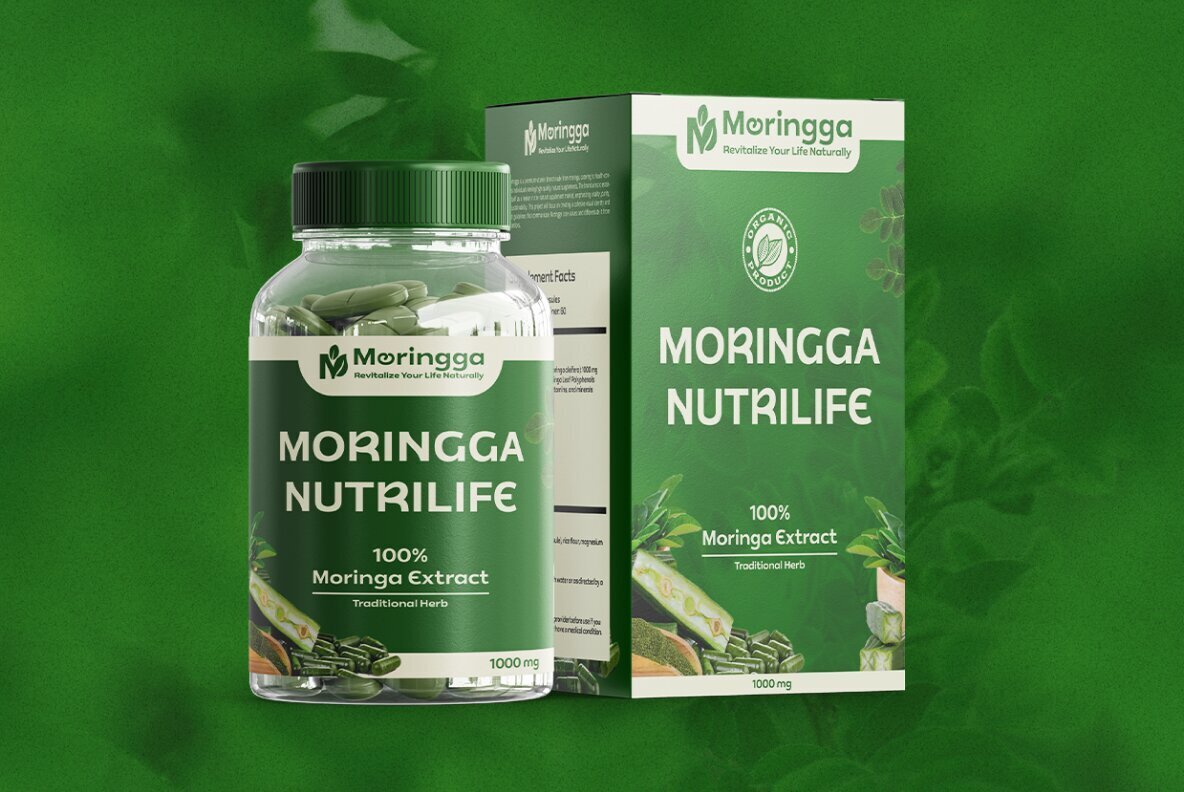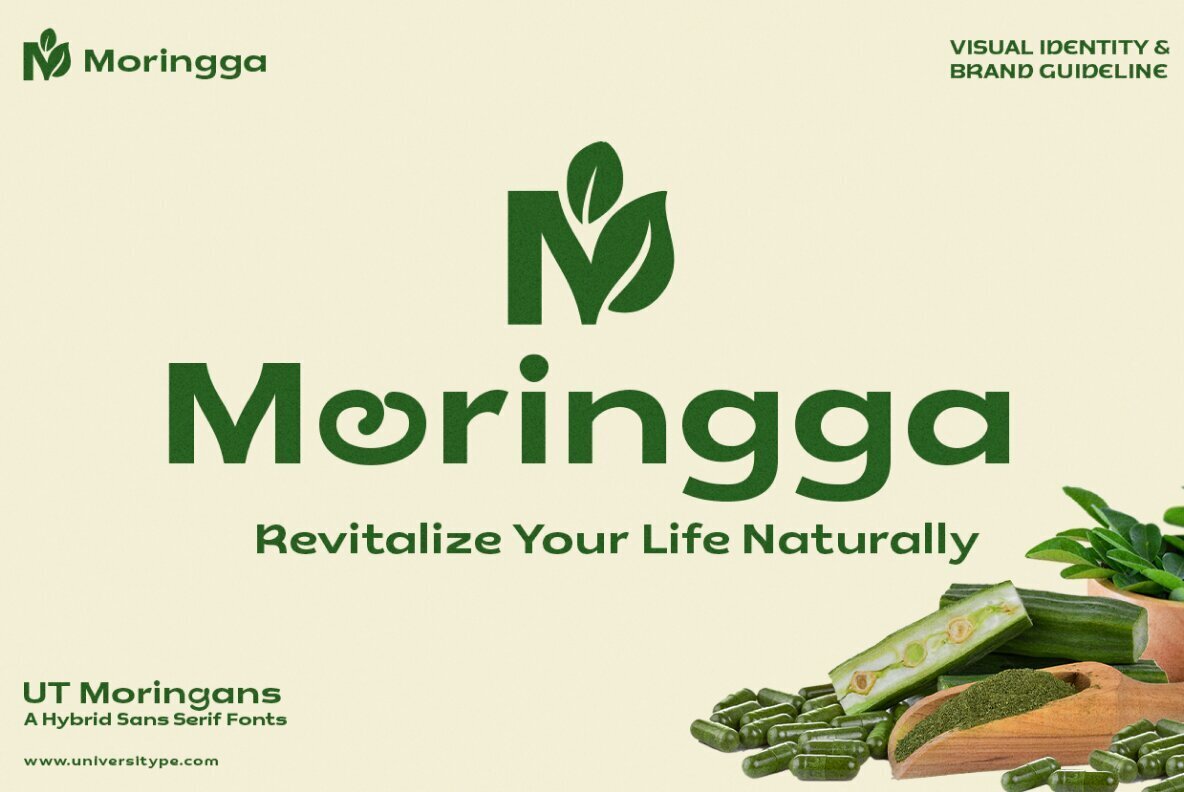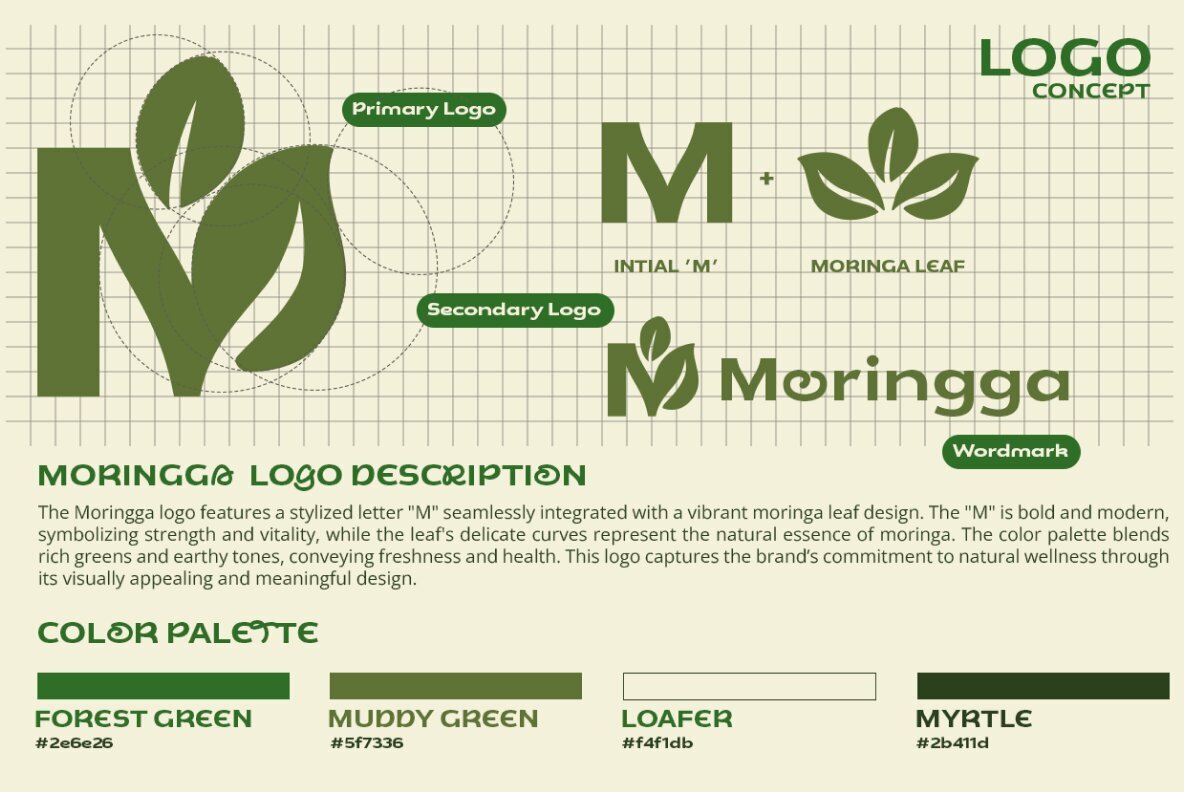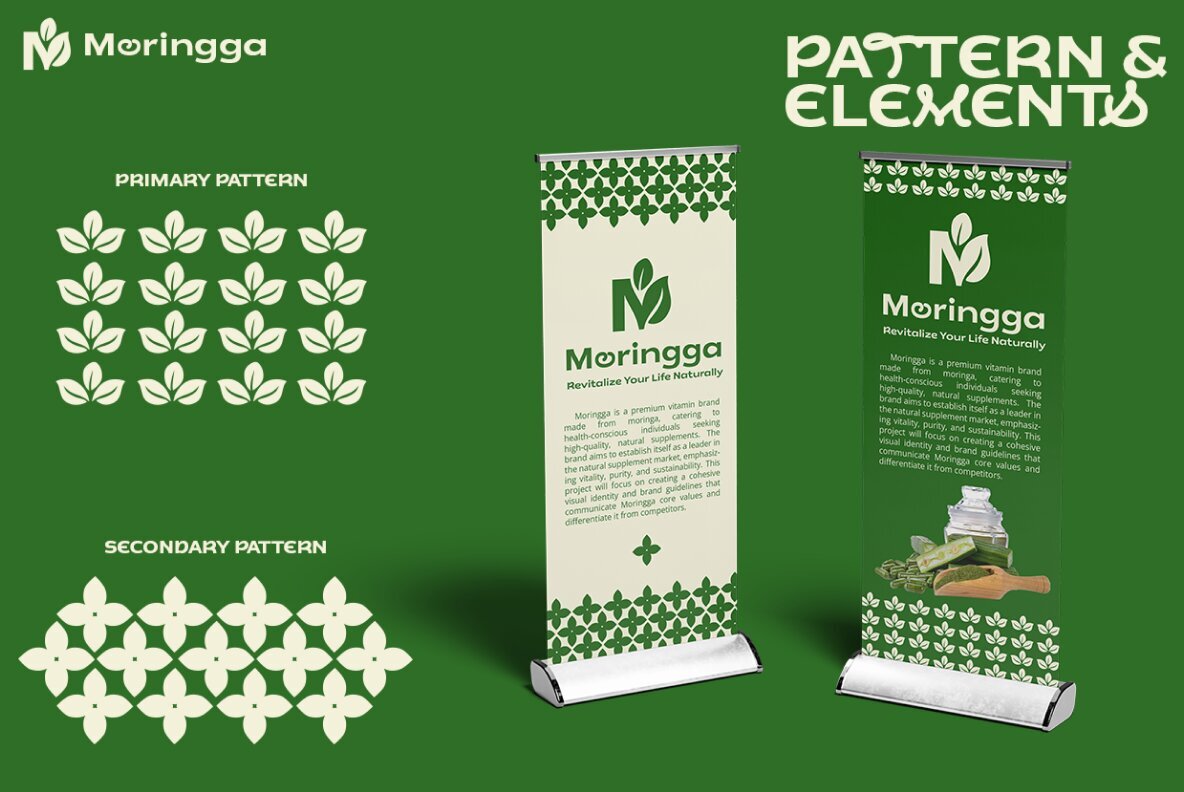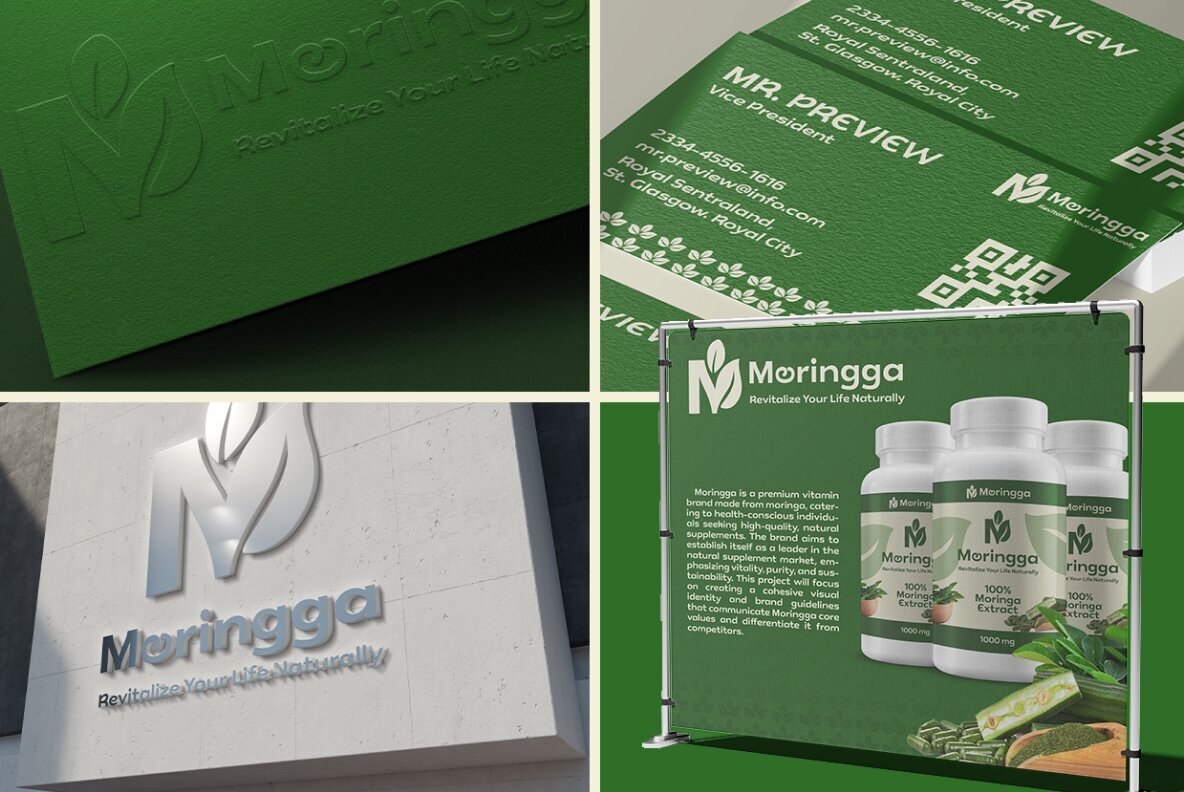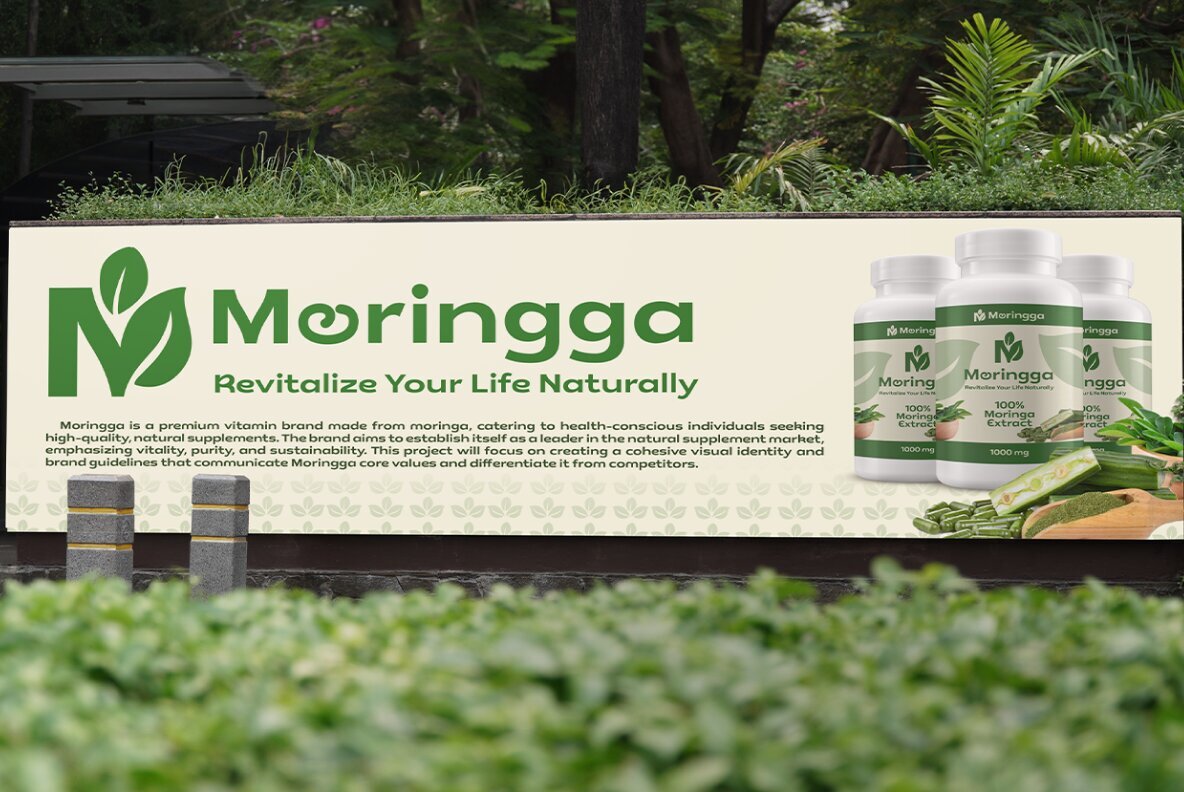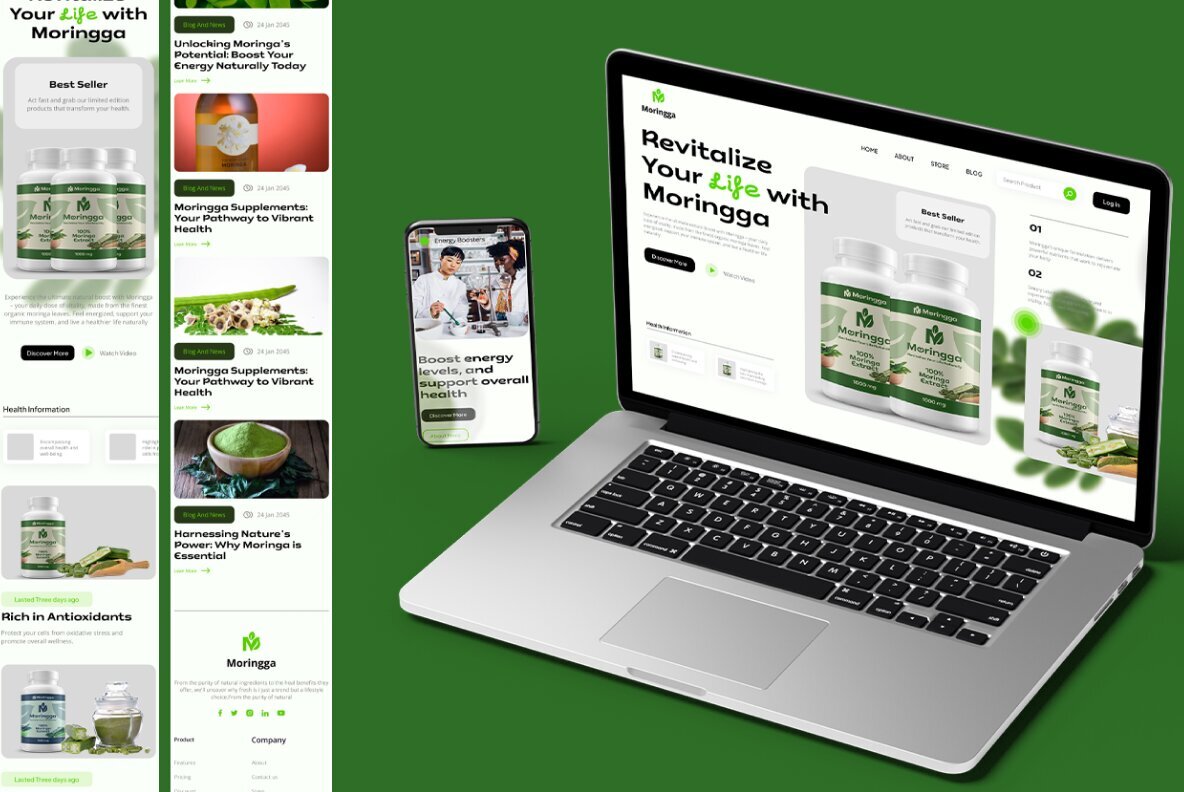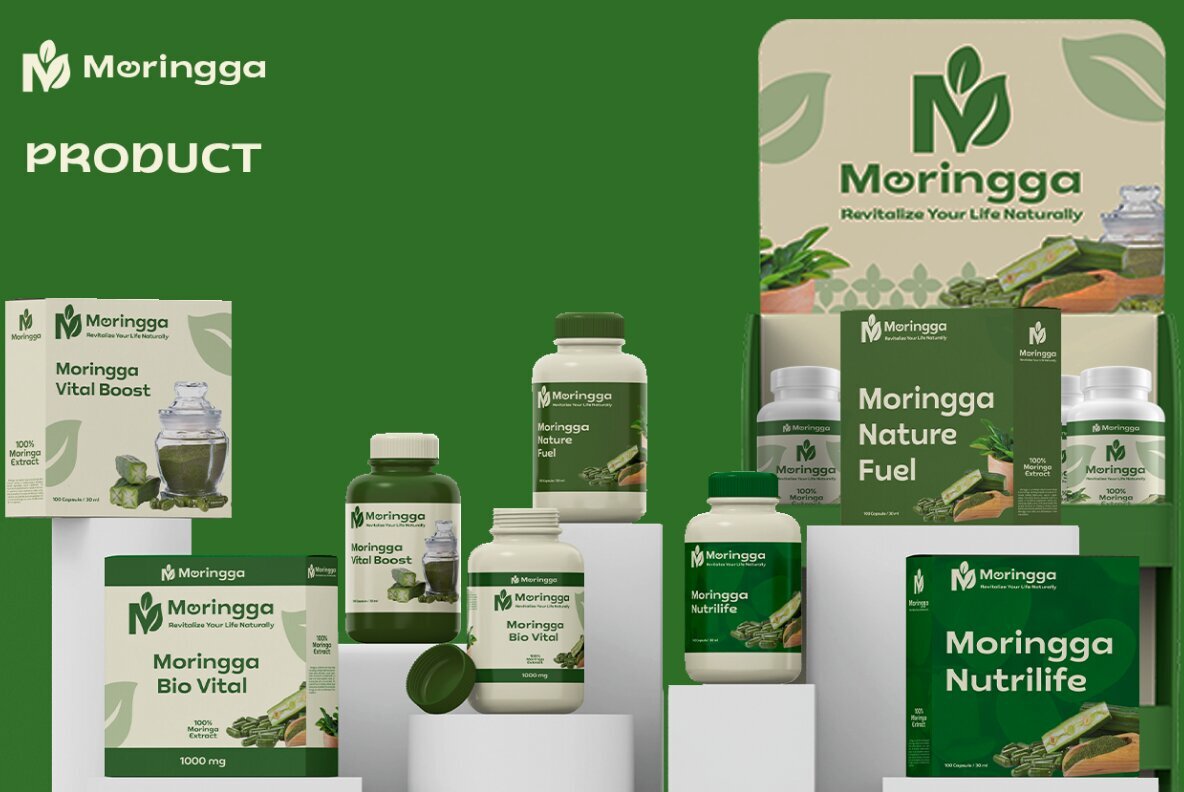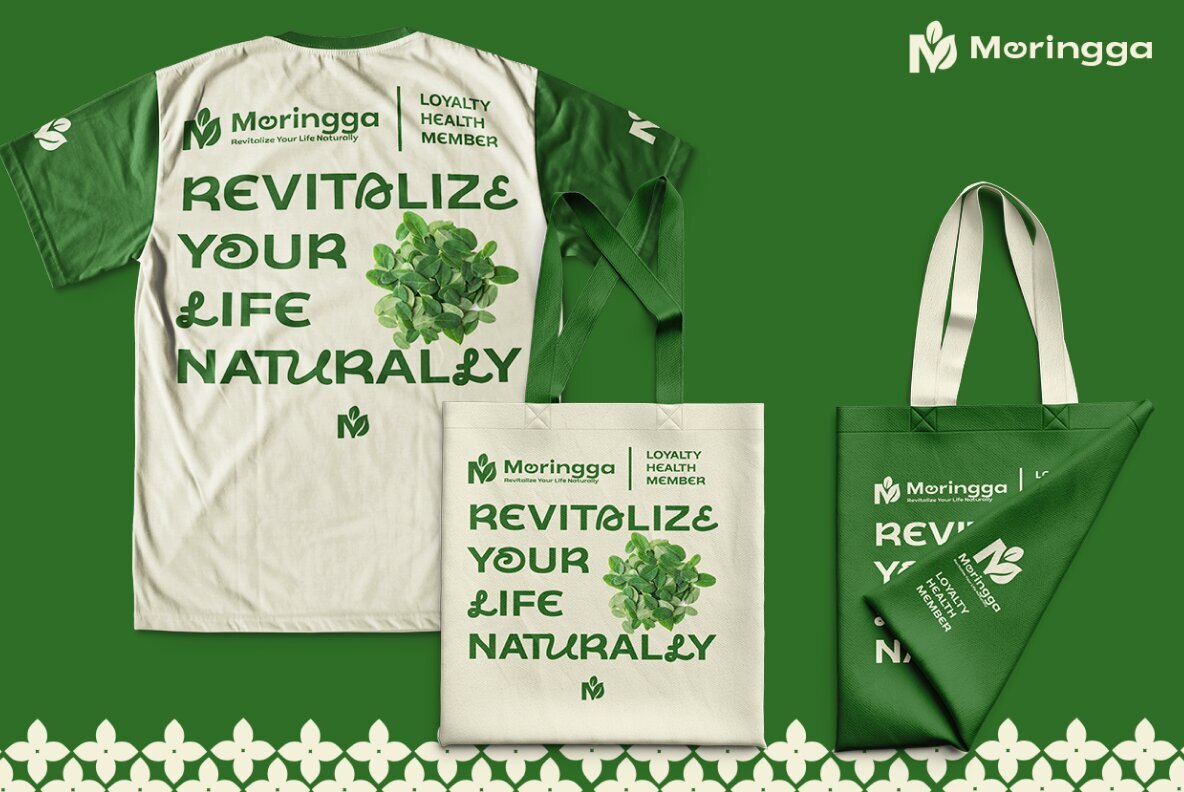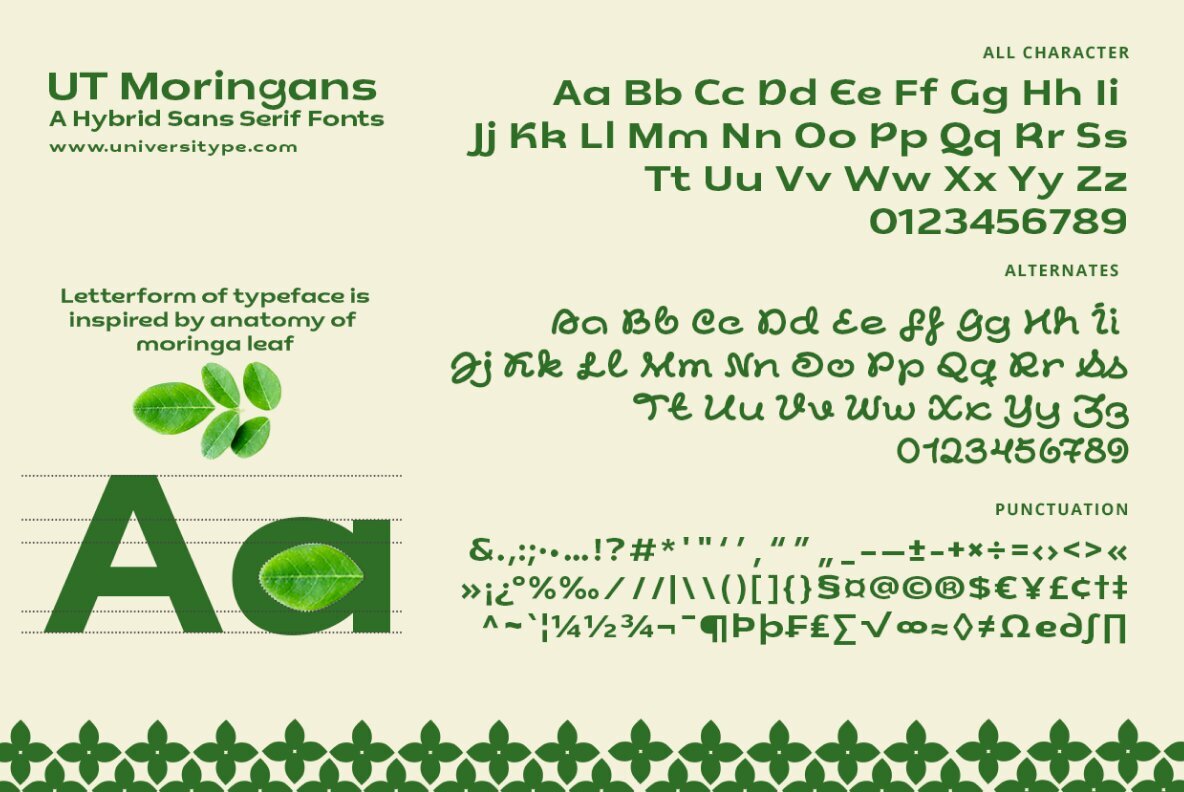
The UT Moringans font is a manifestation of the remarkable moringa leaf's elegant beauty into typography. This leaf, often regarded as the "miracle tree," signifies growth, sustainability, and wellbeing - ethereal elements woven delicately into the font's every curve and outline. The font encapsulates a harmonious blend of the geometric sans serif structure and fluid organic forms of nature, making UT Moringans radiate a feeling of freshness, familiarity, and warmth. It's a versatile font that seamlessly transitions between professional and playful vibes. Its muted botanical persona makes it an ideal partner for green-conscious branding, lending an effortless synergy. UT Moringans is accentuated with a unique blend of functionality and artistic charm. It is characterized by the 'Hybrid Sans Serif Design', combining clean and uncomplicated letterforms with undertones of organic elements. Differentiating it from standard sans serif fonts, it includes a set of hand-drawn alternate styles and stylistic variations for projects demanding a fun twist. Yet, the font's readability is not sacrificed for decoration, making it apt for both headings and body text. Equipped with exhaustive punctuation, currency symbols, fractions and other useful glyphs, the font adapts to various design settings. It promotes a theme of eco-friendliness, resonating with brands emphasizing sustainability, hence aligning with its message of growth and wellbeing. The genesis of the UT Moringans project can be traced back to the admiration for the graceful simplicity of the moringa leaf. The designers at Universitype aimed at creating a font transcribing the natural magnificence of this plant while offering a practical sans serif font. The inclusion of the leaf's gentle curves and rounded edges helps the font embody nature's tranquillity and harmony. The hand-drawn alternate styles are a tribute to the flora's imperfect beauty, thereby adding a unique, organic touch to this font.